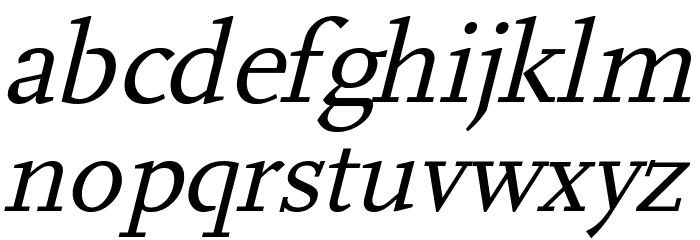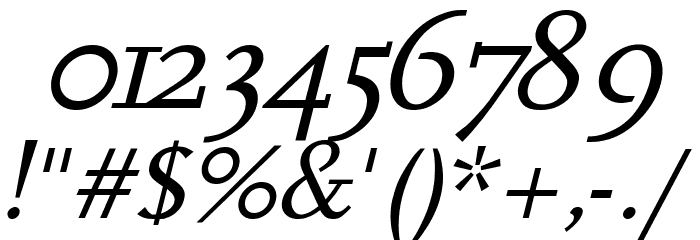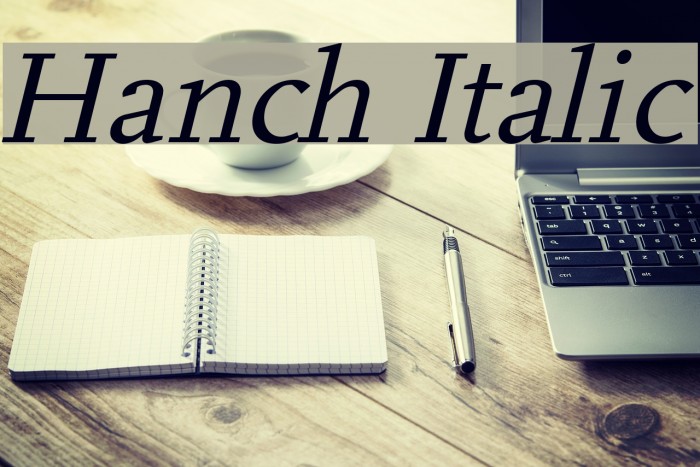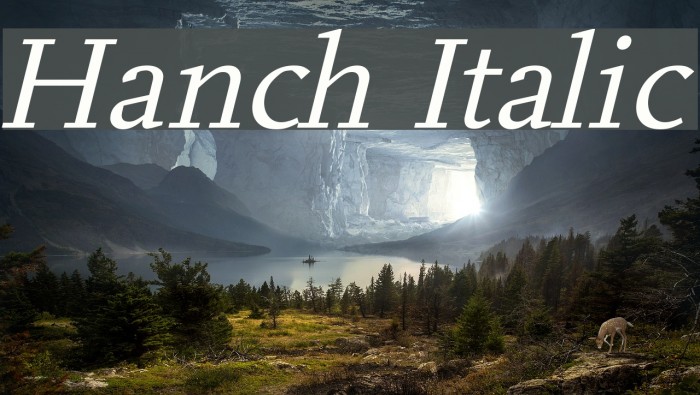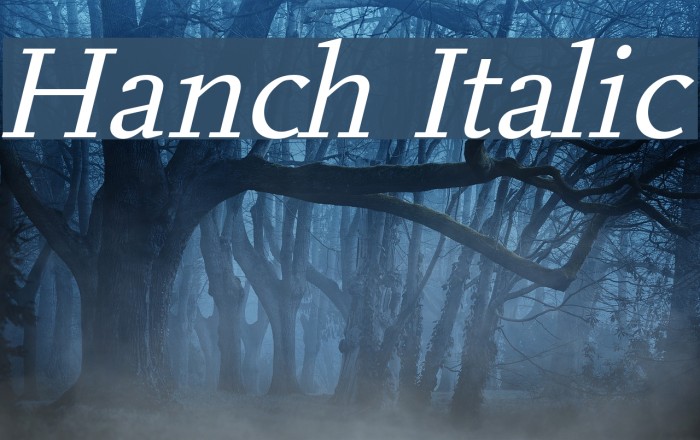
Hanch Italic Font
This font exhibits a classic italic style with elegant, flowing lines that convey a sense of sophistication and grace. The characters are slightly slanted to the right, giving a dynamic and fluid appearance. The serifs are pronounced yet refined, adding a touch of traditional elegance. The font maintains a consistent stroke width, providing a balanced and harmonious look. The numerals are distinct and clear, ensuring readability. Special characters are well-integrated, maintaining the overall aesthetic. This font is ideal for projects that require a touch of class and elegance.
An elegant italic serif font with flowing lines and refined serifs.
- Proposed Projects: Ideal for wedding invitations, formal event programs, elegant branding, and editorial design.
- Overall Style: Classic
- Use Case: Headlines, Logos, Editorial design